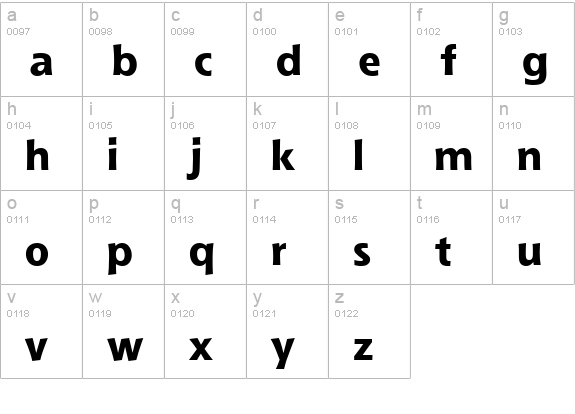
Shannon Extra Bold ATT is a strong, high-contrast variant in the Shannon typeface family \xE2\x80\x94 well suited to headlines, attention-grabbing titles, and strong calls-to-action.
Shannon Extra Bold ATT font is an incredibly striking and powerful typeface that commands attention with its bold and robust design. Its strong and sturdy letterforms exude confidence and make a bold statement in any project or design. This font is perfect for headlines, titles, logos, posters, and any other creative work that requires a strong and impactful visual presence. The thick strokes and crisp edges of Shannon Extra Bold ATT font ensure high legibility, even at smaller sizes, making it a versatile choice for both print and digital media. One of the best things about Shannon Extra Bold ATT font is that it is freely available to download at FontsMarket.com. This means that you can easily access and use this font in your projects without any restrictions or limitations. Whether you are a professional designer or a hobbyist, this font is a valuable addition to your font library. With its bold and commanding presence, Shannon Extra Bold ATT font adds a touch of confidence and professionalism to any design. Its versatility and legibility make it suitable for a wide range of applications, from branding and advertising to web design and packaging. Don't miss the opportunity to enhance your projects with the striking aesthetics of Shannon Extra Bold ATT font. Download it for free at FontsMarket.com and unlock endless creative possibilities.